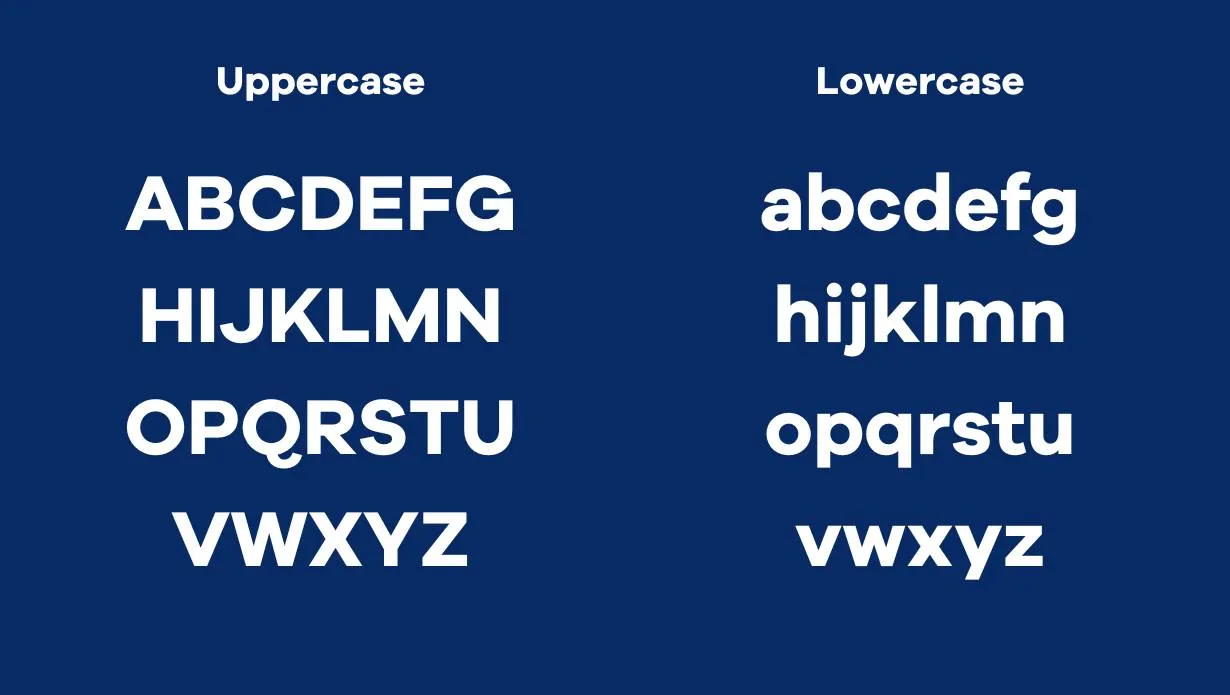
Galyon Font is an attractive and unique typeface that belongs to the Sans-Serif font family. This distinctive typeface was designed by an Australian foundry named GigaType. The characters of this font have neat and clean strokes with no decorative edges perfect for both short and long text.
This typeface has a large character set that includes uppercase alphabets, numerals, punctuations, special characters, and lowercase alphabets.
View of Galyon Font